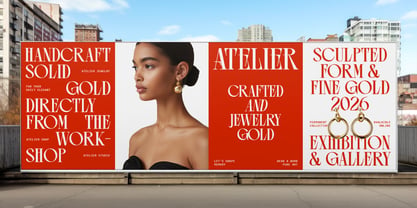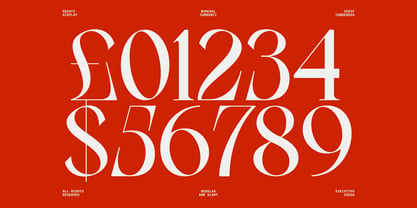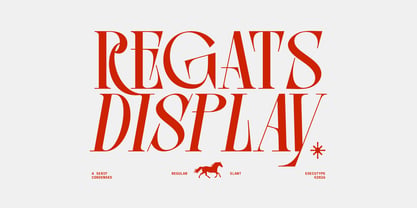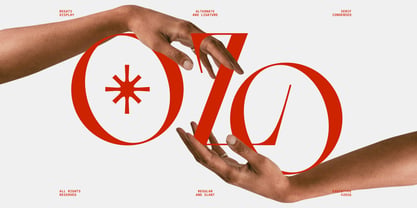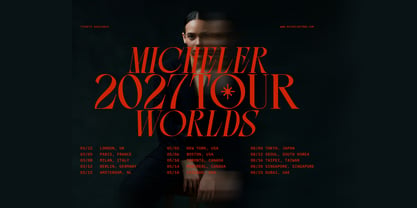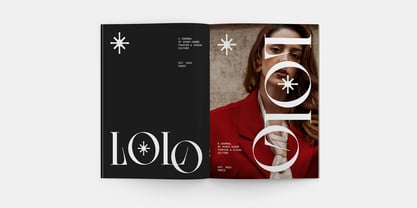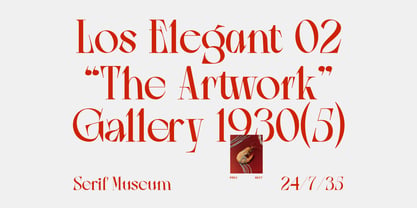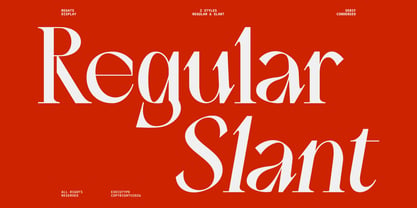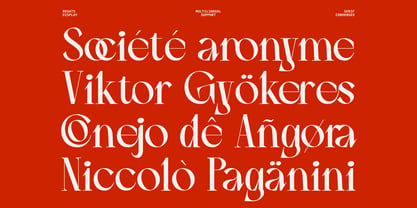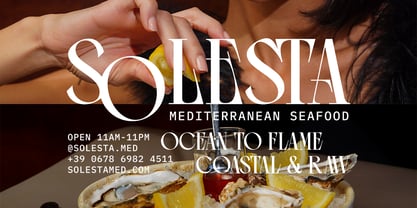
Regats Slant Display
por Tebaltipis Studio
La familia tipográfica Regats Slant Display fue diseñada por Dzulka Elfira y publicada por Tebaltipis Studio. Regats Slant Display contiene 2 estilos y opciones de paquete familiar. Más información sobre esta familia
Introducing Regats Display
Regats is a luxury serif display typeface inspired by 1930s elegance and high-fashion editorials.
Featuring dramatic high-contrast strokes, sharp serifs, and a unique slant/regular style, Regats delivers a sophisticated and timeless look.
Designed to capture attention on magazine covers, luxury branding, perfume labels, and premium packaging. The font includes beautiful alternate characters and ligatures to give your design an exclusive, bespoke feel.
Regats: Where elegance meets display.
Diseñadores: Dzulka Elfira
Fundición: Tebaltipis Studio